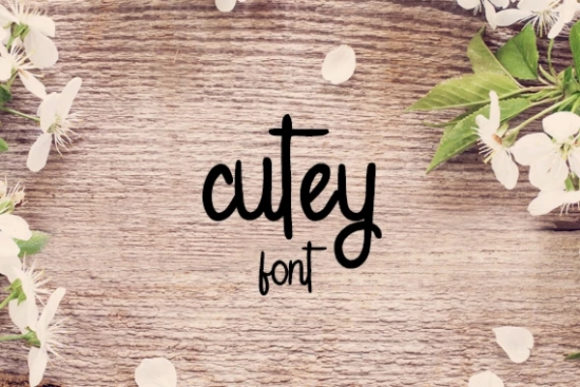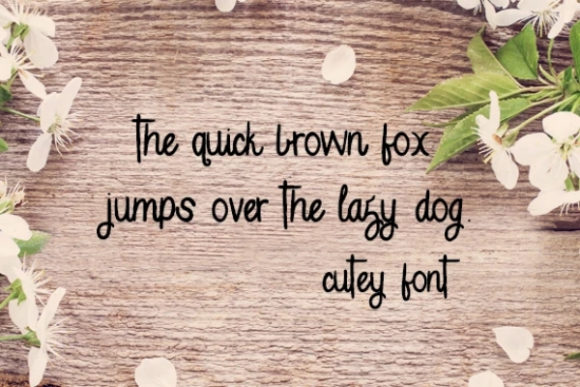
Cutey Font
About Cutey Font
Cutey is an elegant handwritten font with a modern feeling. This cute font will elevate a wide range of design projects to the highest level, be it branding, headings, wedding designs, invitations, signatures, logos, labels, and much more!